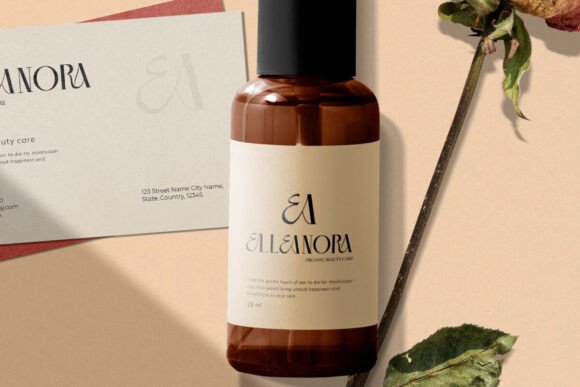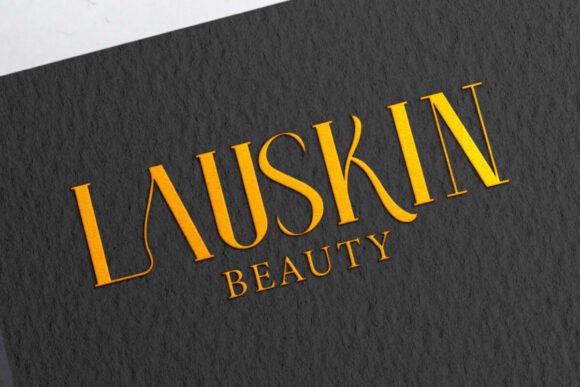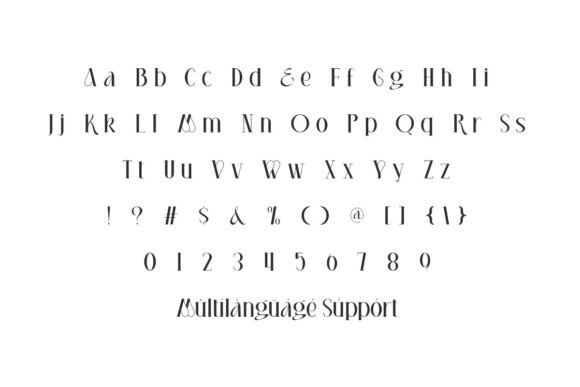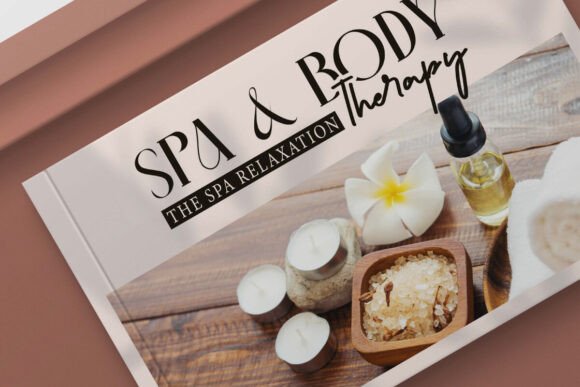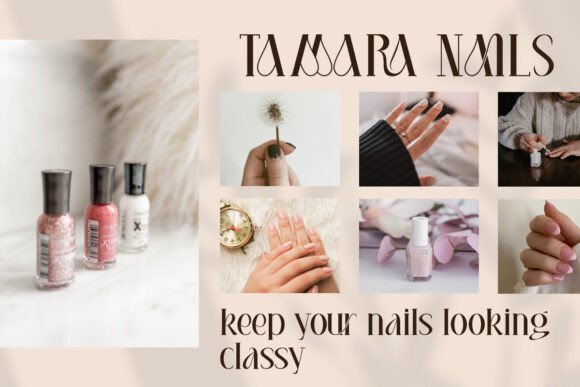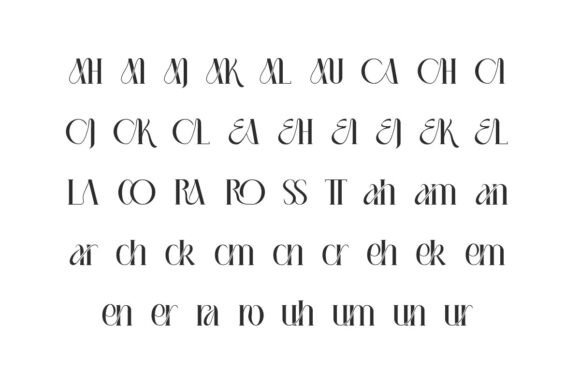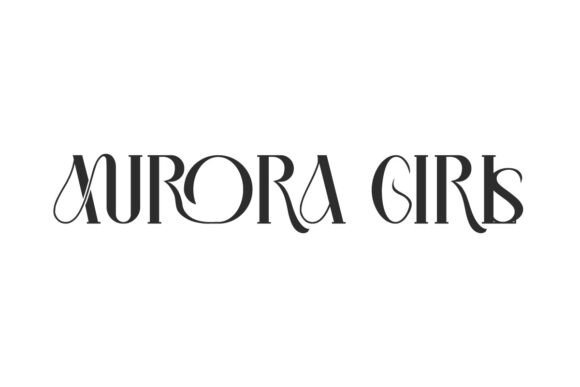
Aurora Girl Font: Elevate Your Brand with Luxury and Sophistication
Are you looking for a font that exudes luxury, sophistication, and uniqueness? Look no further than the Aurora Girl Font. This gorgeous serif font is designed to make your business stand out from the crowd, giving you a distinctive edge in a variety of industries. From accessories to publishing, the Aurora Girl Font is the perfect choice for designers and crafters seeking to elevate their brand.
What Makes Aurora Girl Font So Special?
The Aurora Girl Font boasts a unique shape that sets it apart from other fonts. Its luxurious and elegant design makes it perfect for businesses that want to convey a sense of high-end quality and sophistication. Whether you’re an architect, boutique owner, or fashion designer, this font is sure to make a lasting impression on your customers and clients.
Industries That Can Benefit from Aurora Girl Font
The versatility of the Aurora Girl Font makes it suitable for a wide range of industries, including:
- Accessories: Add a touch of luxury to your jewelry, handbag, or shoe brand with this stunning font.
- Architect: Elevate your architectural designs with a font that exudes sophistication and elegance.
- Boutique: Create a unique and memorable brand identity for your clothing, home goods, or specialty store.
- Café: Serve up a stylish and inviting atmosphere with the Aurora Girl Font.
- Cosmetic: Enhance your beauty brand with a font that’s as beautiful as your products.
- Event Organizer: Make your events unforgettable with a font that adds a touch of luxury and glamour.
- Fashion Designer: Showcase your designs with a font that’s as stylish and sophisticated as your clothing.
- Film: Add a touch of Hollywood glamour to your movie titles, posters, and marketing materials.
- Fragrance Maker: Create a scent that’s as elegant and sophisticated as your perfumes and fragrances.
- Furniture: Elevate your furniture designs with a font that exudes luxury and refinement.
- Interior Design: Create beautiful and inviting spaces with a font that adds a touch of sophistication.
- Jewelry: Showcase your stunning jewelry pieces with a font that’s as elegant and luxurious as your creations.
- Photography: Add a touch of glamour to your photography portfolio and marketing materials.
- Printing: Create beautiful and luxurious print materials with the Aurora Girl Font.
- Publishing: Elevate your book titles, covers, and marketing materials with a font that’s as sophisticated as your content.
- Real Estate: Showcase your luxury properties with a font that exudes elegance and refinement.
- Restaurant: Serve up a stylish and inviting atmosphere with the Aurora Girl Font.
- Retail: Create a unique and memorable brand identity for your retail business.
- Skincare: Enhance your beauty brand with a font that’s as beautiful as your products.
- Social Media Content: Elevate your social media presence with a font that adds a touch of luxury and sophistication.
- Spa Salon: Create a relaxing and inviting atmosphere with the Aurora Girl Font.
- Writer: Showcase your writing with a font that’s as elegant and sophisticated as your words.
Why Choose Aurora Girl Font?
There are many reasons why the Aurora Girl Font stands out from the crowd:
- Unique Design: The Aurora Girl Font boasts a unique shape that sets it apart from other fonts.
- Luxurious and Elegant: This font exudes luxury and sophistication, making it perfect for high-end brands.
- Versatile: The Aurora Girl Font is suitable for a wide range of industries and applications.
- Easy to Read: Despite its elegant design, the Aurora Girl Font is easy to read, making it perfect for body text and headlines.
The Aurora Girl Font is a stunning serif font that’s perfect for businesses seeking to elevate their brand with luxury and sophistication. With its unique design, versatility, and ease of use, this font is sure to make a lasting impression on your customers and clients. Whether you’re a designer, crafter, or business owner, the Aurora Girl Font is a must-have addition to your font collection.